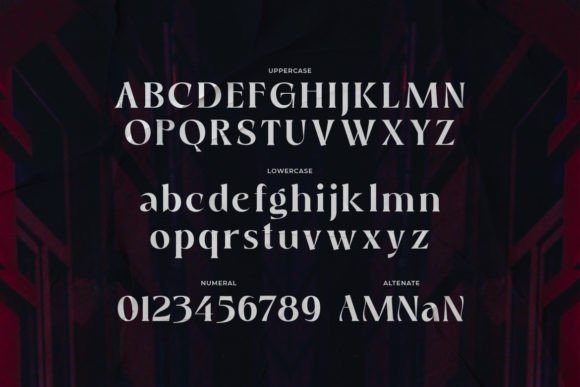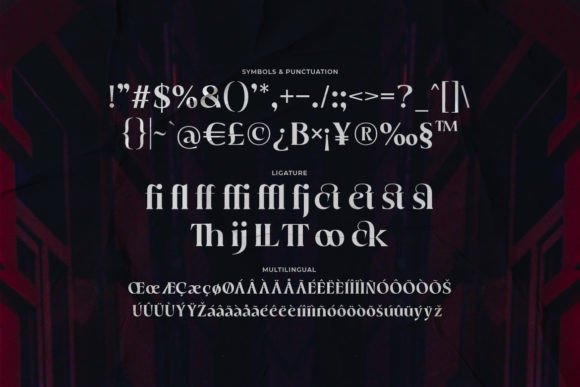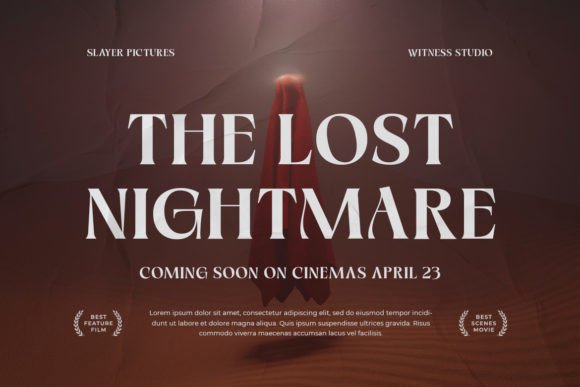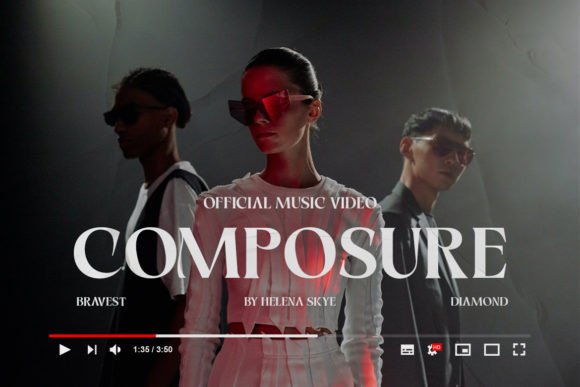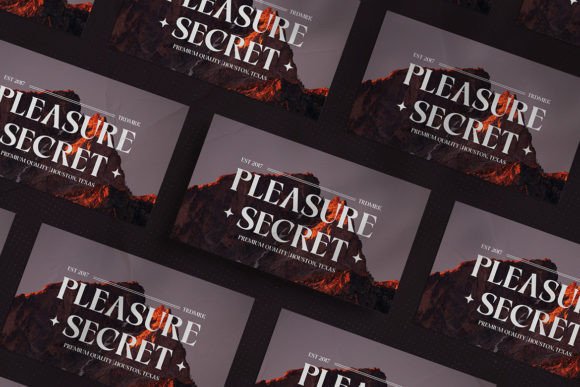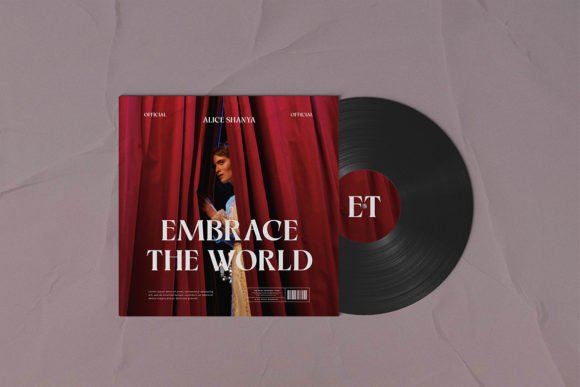
Introduction to Resident Font
You know that moment when you’re working on a creative project and you’re searching for the perfect font to elevate your design? The one that makes your ideas shine without overpowering them? That’s where the Resident Font comes in – a modern, unique serif font that effortlessly blends traditional influences with a contemporary aesthetic.
Key Features of Resident Font
- Supports a wide range of languages and characters for global design applications.
- Includes multiple font styles and weights for added design versatility.
- Resolution-independent design ensures crisp and clear display at various sizes.
Honest Review: Resident Font
I recently stumbled upon the Resident Font and I’m excited to share my thoughts on this design resource. As a designer, I’m always on the lookout for high-quality fonts that can elevate my creative projects. And let me tell you, this font does not disappoint.
What works well about the Resident Font is its unique blend of modern and retro elements. The font’s versatility makes it suitable for a wide range of creative projects, from logos to advertising materials. I particularly love the transparent background option, which allows for seamless integration with any design element.
Some of the key features that stood out to me include:
- High-quality design: The Resident Font is meticulously crafted to provide a premium feel to any design project.
- Customizable: The font’s transparent background option allows for easy customization to suit any design need.
However, I did encounter some limitations with the font. For instance, the font’s weight and size options are limited, which can make it challenging to use in certain design contexts.
Overall, I’m impressed with the Resident Font and would highly recommend it to fellow designers. Its unique style and high-quality design make it an excellent addition to any design resource library.
Tips for Getting the Most Out of Resident Font
Resident Font is a versatile font that can be used in a variety of creative projects. To get the most out of it, try using it in combination with other design elements, such as images or graphics. Experiment with different font sizes and styles to create a unique look.
Resident Font is perfect for creating high-quality graphics, presentations, and documents. It’s a great choice for anyone looking to add a touch of elegance to their work. Some common use cases include:
- Business presentations
- Blog posts
- Website graphics